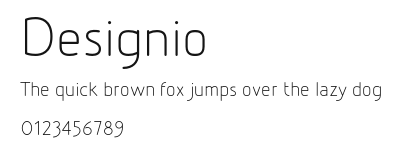
• Font Name: Designio
• Full Font Name: Designio
• Manufacturer: Rodrigo Araya Salas
About Designio.otf
Designio.otf is a modern, elegant sans-serif font designed for ultimate readability and visual harmony. Perfect for branding, headlines, web design, and print materials.